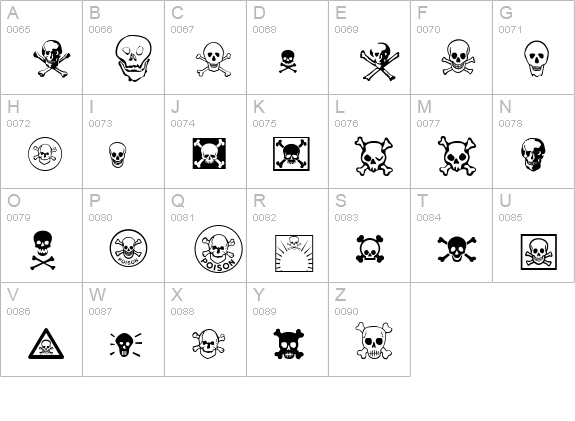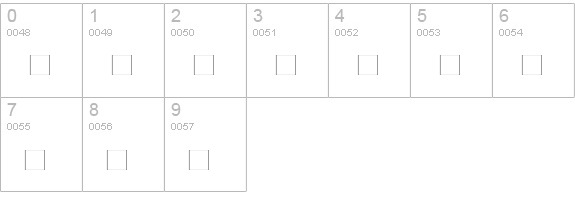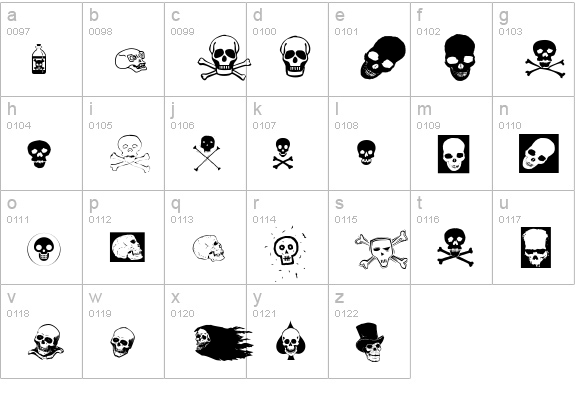
SkullZ Font Details
SkullZ Font is a striking and edgy typeface that perfectly encapsulates the rebellious and bold spirit. With its intricate design, it adds an air of mystique and intrigue to any creative project. This font is characterized by its sharp angles, intricate details, and skull-inspired elements, making it an ideal choice for projects that require a touch of darkness and attitude. SkullZ Font stands out from the crowd with its unique combination of elegance and grit, making it perfect for a wide range of design applications. Whether you're working on a poster, logo, album cover, or any other project that needs a touch of badassery, SkullZ Font will deliver the perfect balance between style and impact. The best part about SkullZ Font is that it is free! Yes, you heard that right. This powerful font is freely available to download at FontsMarket.com, one of the leading sources for high-quality and diverse font collections. It's never been easier to add a touch of rebelliousness to your designs without breaking the bank. So why wait? Download SkullZ Font today and unleash your creativity with this stunning typeface. Whether you're designing for a rock band, a tattoo parlor, or simply want to make a statement, SkullZ Font will elevate your designs to a whole new level. Grab it now from FontsMarket.com and let your imagination run wild.